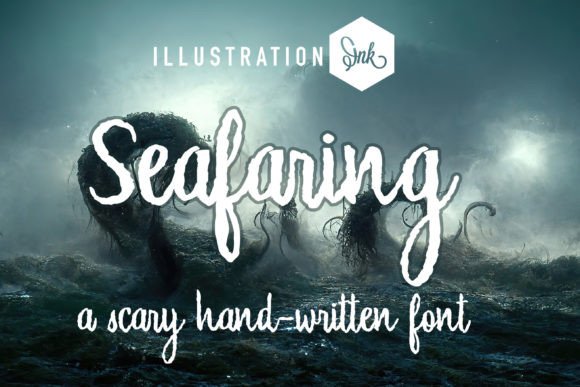
Unleash the captivating allure of Seafaring, an extraordinary handwritten script font that conjures the essence of eerie tales and mysterious legends. With its captivating textures and intriguing quirks, this font will cast a spellbinding charm over your Halloween projects, transforming them into enchanting masterpieces. Let your imagination set sail on a journey of creativity, where Seafaring's enchanting strokes weave tales that dance in the moonlight.
Embark on a typographic voyage with Seafaring, where each letter is a hauntingly beautiful character, etched with the secrets of the deep. Its spooky charm will send shivers down your spine, creating an atmosphere of spine-tingling adventure. Whether you're crafting invitations for a haunted house party, designing posters for a spooky movie night, or conjuring up spellbinding social media posts, Seafaring will be your steadfast companion, adding an eerie elegance to every word.
Dive into the depths of Seafaring's versatility, where its handwritten style lends itself effortlessly to an array of projects. Create spine-chilling book covers that entice readers to unlock the secrets within. Design business cards that leave a lasting impression, making your brand stand out from the ordinary. Let Seafaring's enchanting strokes flow across t-shirts, mugs, and other merchandise, creating haunting pieces that capture the spirit of Halloween.
With Seafaring, the possibilities are endless. Embark on a creative journey where your imagination knows no bounds, and let this font guide you through a realm of enchanting possibilities. Seize the opportunity to make your Halloween projects truly unforgettable, captivating your audience with the magic of Seafaring.